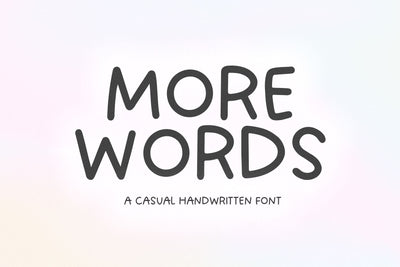
More Words - Casual Handwritten Font
More Words is a casual handwritten font.
This font is perfect for craft projects, shirts, mugs, svg files, stickers, quotes, logos and more!